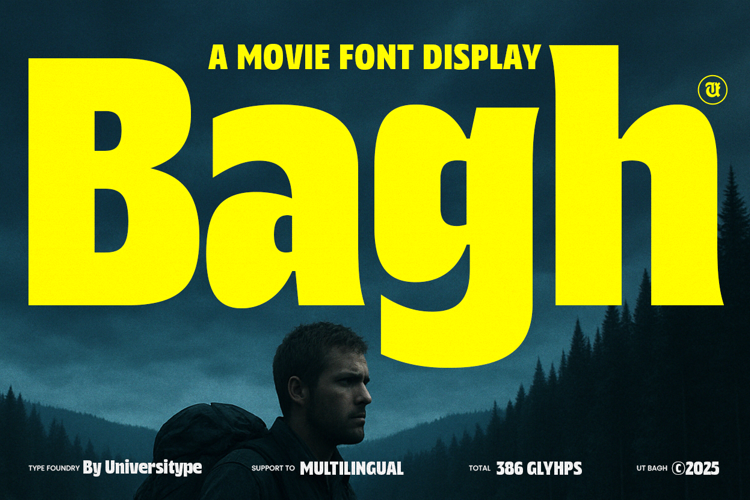
UT Bagh Display Font
UT Bagh is a neo-grotesk sans-serif built with the big screen in mind. It’s clean, modern, and confident—crafted to be just as striking on a four-story movie poster as it is in the rolling end credits of your favorite film. With its wide apertures, generous counters, and steady rhythm, UT Bagh brings clarity and character to any project. Think of it as your typographic IMAX lens: bold, versatile, and always in focus.